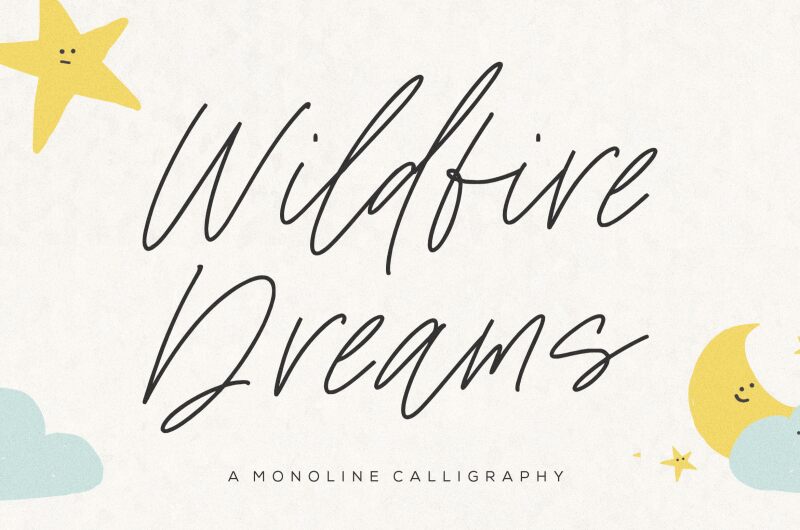
Wildfire Dreams
Wildfire Dreams font by Balpirick Studio incorporates romantic elements with a modern touch, making for casual elegance and a personal, expressive flair. This free handwritten font has a light weight and condensed width with soft curves that amalgamate the letters together smoothly.
Wildfire Dreams is designed for wedding invitations, place cards, greeting cards, typography quotes, movie posters, menu layouts, branding projects such as beauty or fashion brand logo designs. It also suits boutique signs or book cover titles.